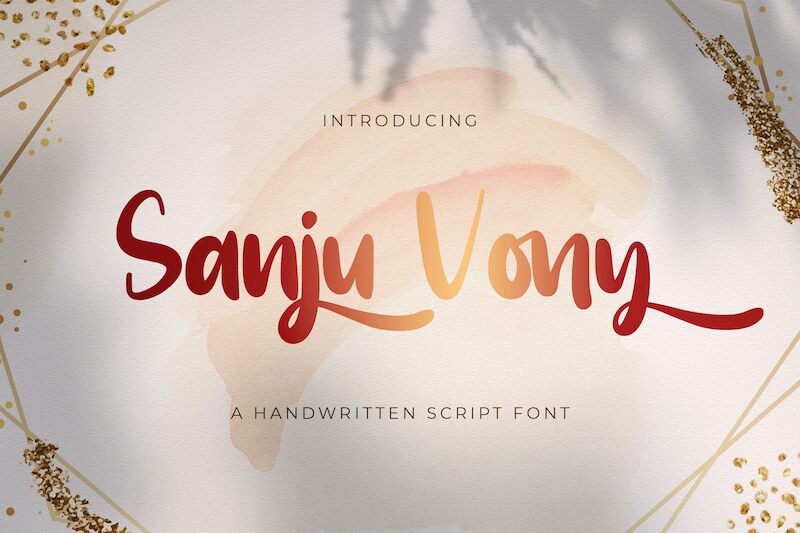
Sanju Vony
Introducing Sanju Vony, a beautiful handwritten script font designed by Virgiawan Listanto. Perfect for creating eye-catching logos, posters, invitations and more, this font is sure to bring a unique touch to all your creative projects.